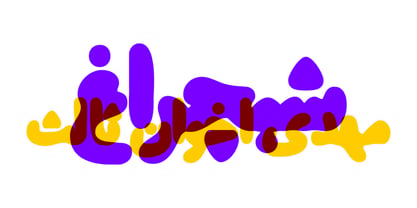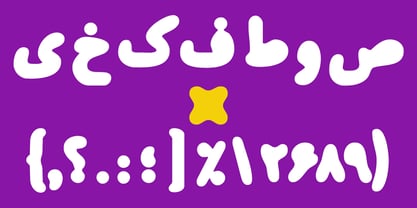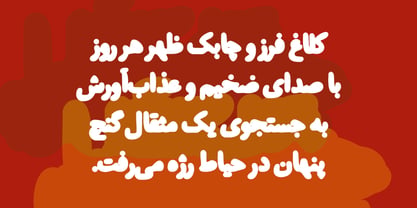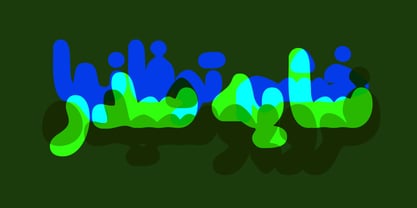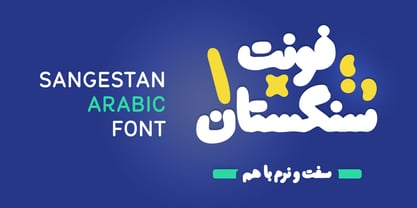
Sangestan
by Si47ash Fonts
The Sangestan Font Family was designed by Shahab Siavash and published by Si47ash Fonts. Sangestan contains 1 styles. More about this family
This typeface takes its name from "The Tale of the City of Stone", a poem by the great Persian poet Mehdi Akhavan Sales.
The typeface itself shares something with that title. It's visually heavy, and although its forms are smooth and rounded, they also carry an unmistakable sense of solidity. The letters and dots are connected by delicate joins that create a gentle first impression. But once you see an entire sentence—or better yet, a full paragraph—the overall texture becomes much rougher and more substantial, almost as if the words themselves had been carved from stone.
Some of its letterforms feel almost cryptic, as though they invite the viewer to decipher them rather than simply read them. That makes it especially well suited for headlines, logotypes, posters, and expressive typography—any project that calls for the same balance of softness and strength.
As you'll notice in the examples below, despite its bold weight, the typeface remains surprisingly legible even at smaller sizes. In fact, reducing the size softens its appearance even further.
Its rounded construction can also evoke the feel of handwritten lettering or thick marker strokes, since there are virtually no sharp corners anywhere in the design. Everything flows with softness and warmth.
Designers: Shahab Siavash
Foundry: Si47ash Fonts